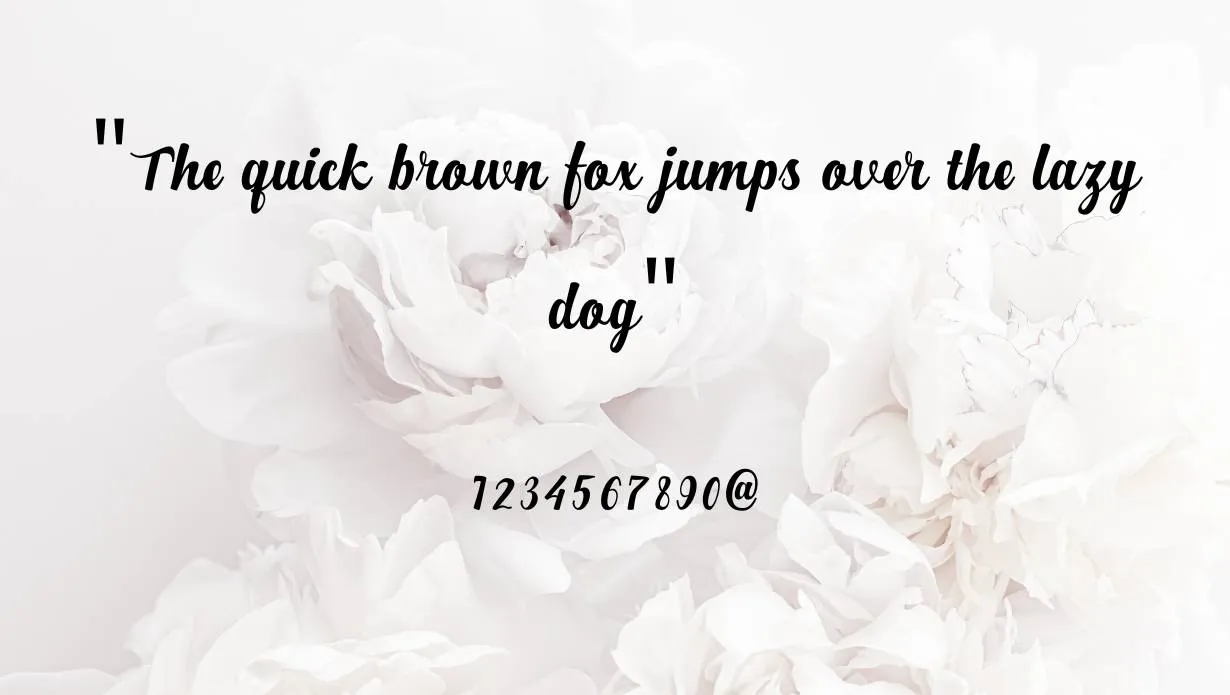
Alexander Font is a classic and elegant typeface known for its refined and stylish appearance. Its sophisticated design makes it perfect for luxury branding, formal invitations, and stylish editorials.
| Name | Alexander Font |
| Designer | Adam Roe |